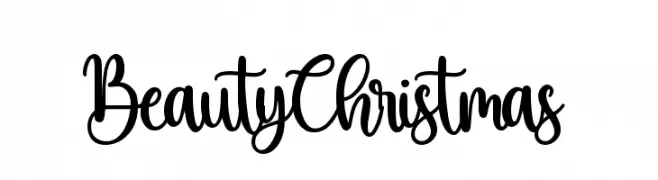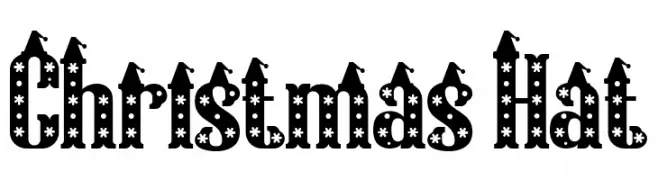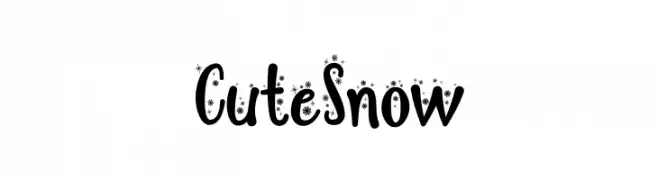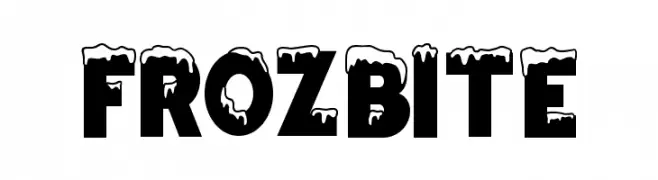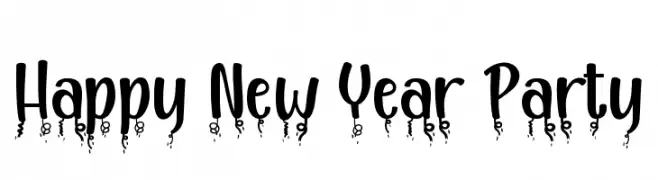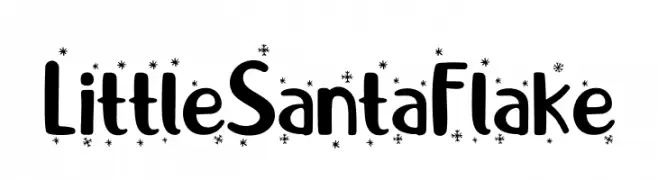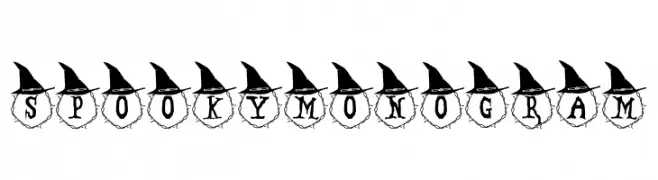
• Antry Sans PERSONAL USE ONLY Regular
A bold, impactful font with wide, slightly condensed uppercase letters.
• FROZBITE
A bold, festive font with snow-capped uppercase letters.
• Beauty Christmas
A playful, whimsical handwritten font with a festive and elegant style.
• Spooky Monogram
A whimsical, Halloween-themed font with characters in witch hat frames.
• Christmas Hat
A festive, decorative font with star patterns and hat-like accents on uppercase letters.
• Little Santa Flake
A playful, snowflake-accented font with bold, rounded characters.
• Xmas Bells
A bold, playful font with a whimsical, festive style.
• PWHalloween
A whimsical, Halloween-themed decorative font with spooky elements.
• Happy New Year Party
A whimsical, decorative font with curly accents and a playful style.
• Cute Snow
A playful, snowflake-adorned font perfect for festive and cheerful designs.